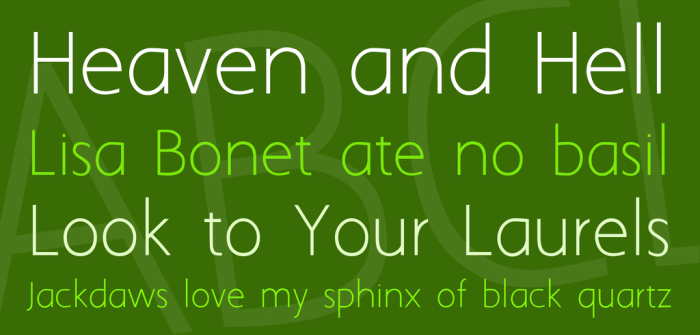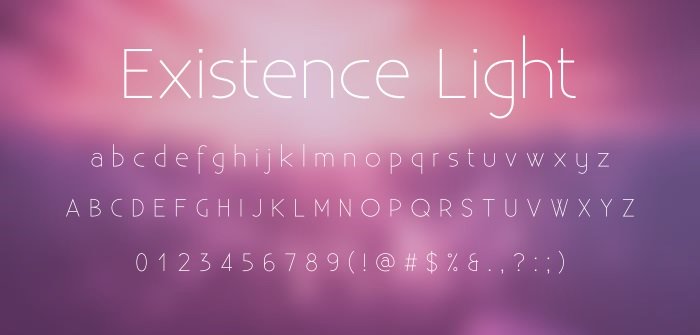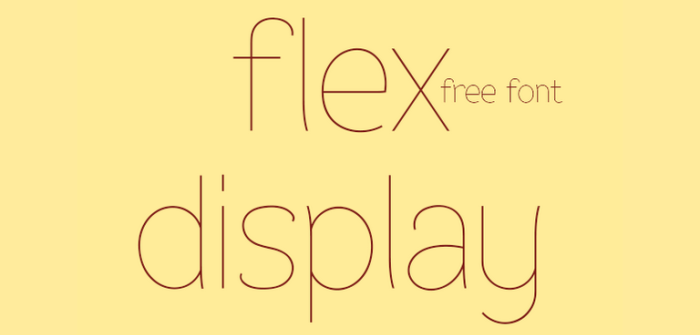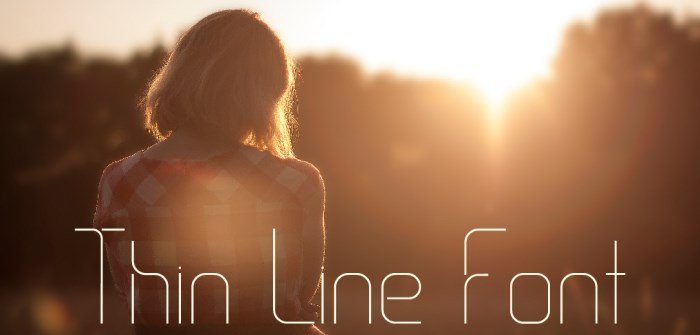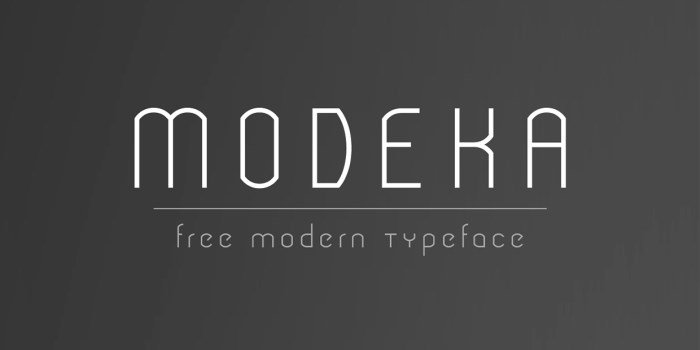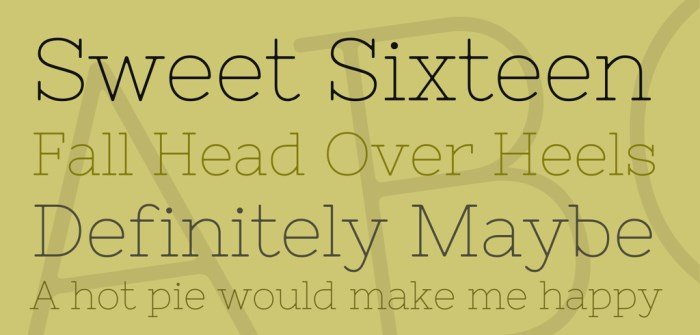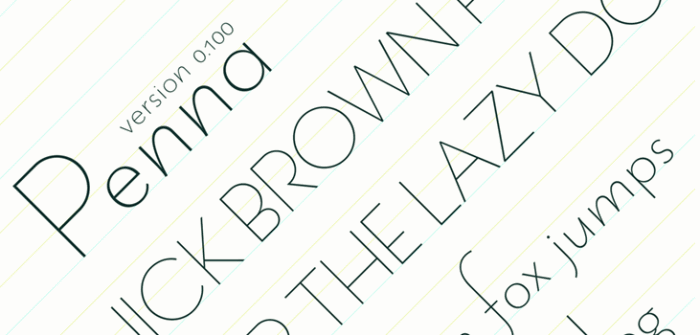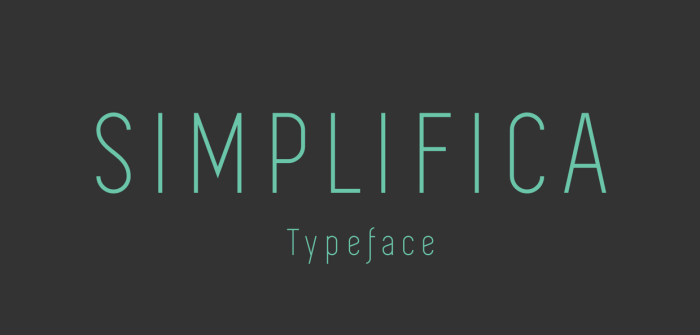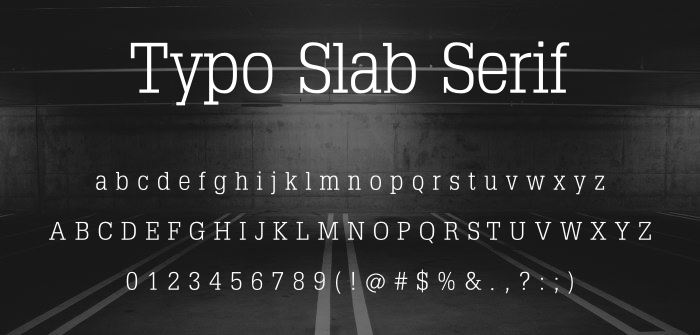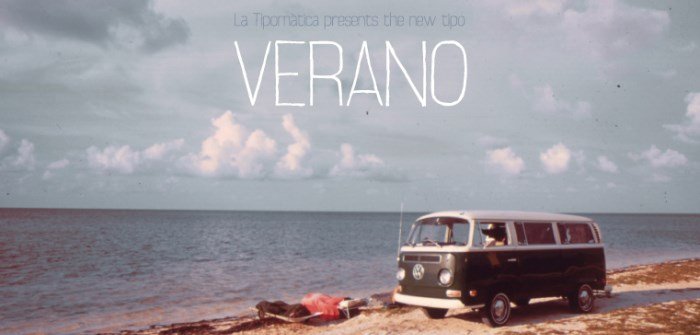
These fonts are mostly clean sans serif typefaces, but you’ll also find a few Slab Serif and screen-friendly fonts for added variety. Thin fonts work especially well in headings, menus, buttons, and modern minimalist branding, giving your design an elegant and professional look.
• 🖋️ Free thin sans serif fonts – perfect for clean and modern layouts.
• 🔲 Slab serif thin fonts – a balanced mix of style and readability.
• 📱 Screen-optimized fonts – designed to look sharp on digital devices.
1. Verano
Verano is a stylish slim sans serif typeface designed by Joan Alegret, with a detached look. Specially designed for summer use, it is ready to be used for all types of work, both commercial and non-commercial.
2. Typo Slab Serif
As the name suggests, Typo Slab Serif is a thin Slab Serif typeface designed by Manfred Klein.
3. Aaargh
Aaargh is a thin, light and modern sans serif typeface inspired by the avant-garde. According to its designer Tap Wanders, it is a slightly “anorexic” typeface.
4. Simplifica
Simplifica is a slightly compressed sans serif font characterized by a uniform thin line. Created by Kaiwa, it is a simple and straightforward font that you can freely use for any personal and commercial work.
5. Penna
Penna is an ultra-light, thin geometric sans serif typeface designed by arro and licensed as a Public Domain font.
6. Nixie One
Nixie One is a minimalistic font with thin serifs. The font, created by Giovanni Lemonade, is a mixture of neon tube signs and typewriter signs.
7. Modeka
Modeka is another elegant typeface from RTI Creative, a modern and lightweight font that combines straight and curved lines in minimalistic but distinctive characters.
8. Flex Display
Flex Display, developed by Alvaro Tomaz, is a free sans serif geometric thin display that can be used in branding, candy recipes and web fonts.
9. Existence Light
A clean, modern, ultra-fine sans serif font created by Yeah Noah. The font is available in three styles: light, monochrome and stencil.
10. Thin Line Font
An elegant modern slim font designed by RTI Creative that can be used for free in commercial works.